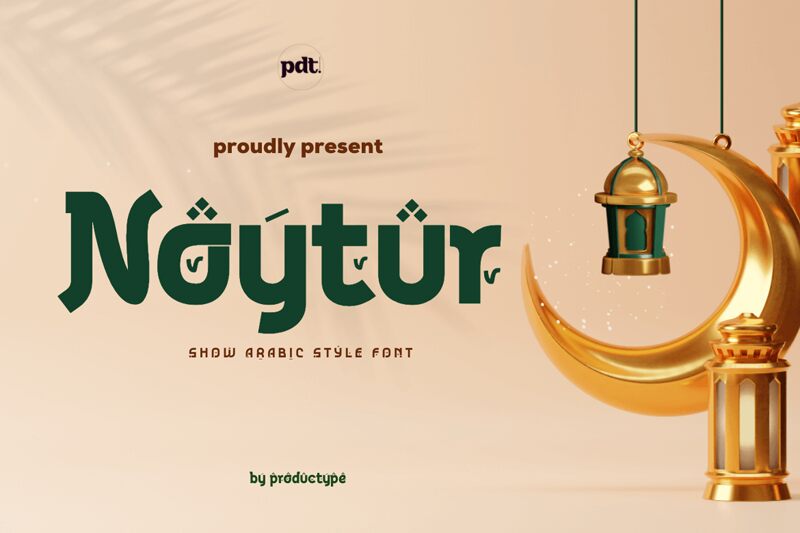
Noytur, the bold faux arabic font designed by productype, is perfect for projects that need a touch of exoticism. With its unique style, this foreign typeface will make your designs stand out from the crowd. Whether you're working on a branding project for an international company or creating eye-catching packaging for a Middle Eastern-inspired product line, Noytur is the perfect choice. Its bold weight adds extra emphasis to your message while still maintaining legibility. Get creative and let Noytur be your go-to font for all things exotic and foreign!